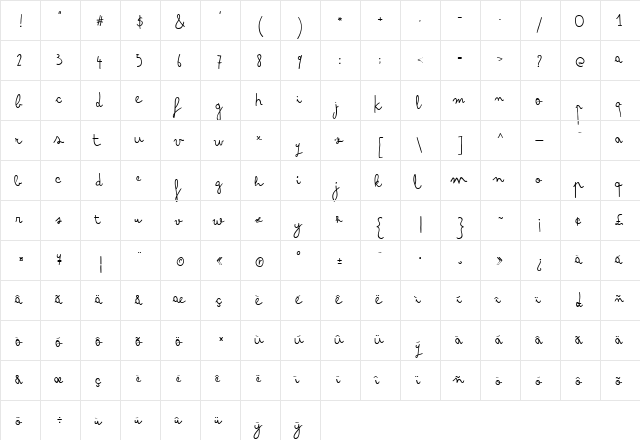
Arsenale White Regular
| Foundry | francesco canovaro, jonathan calugi, studio kmzero |
| Designer | francesco canovaro, jonathan calugi, studio kmzero |
Design Context for Arsenale White Typeface
Arsenale White is a composed and adaptable typeface that performs quietly and consistently across a wide range of design contexts.